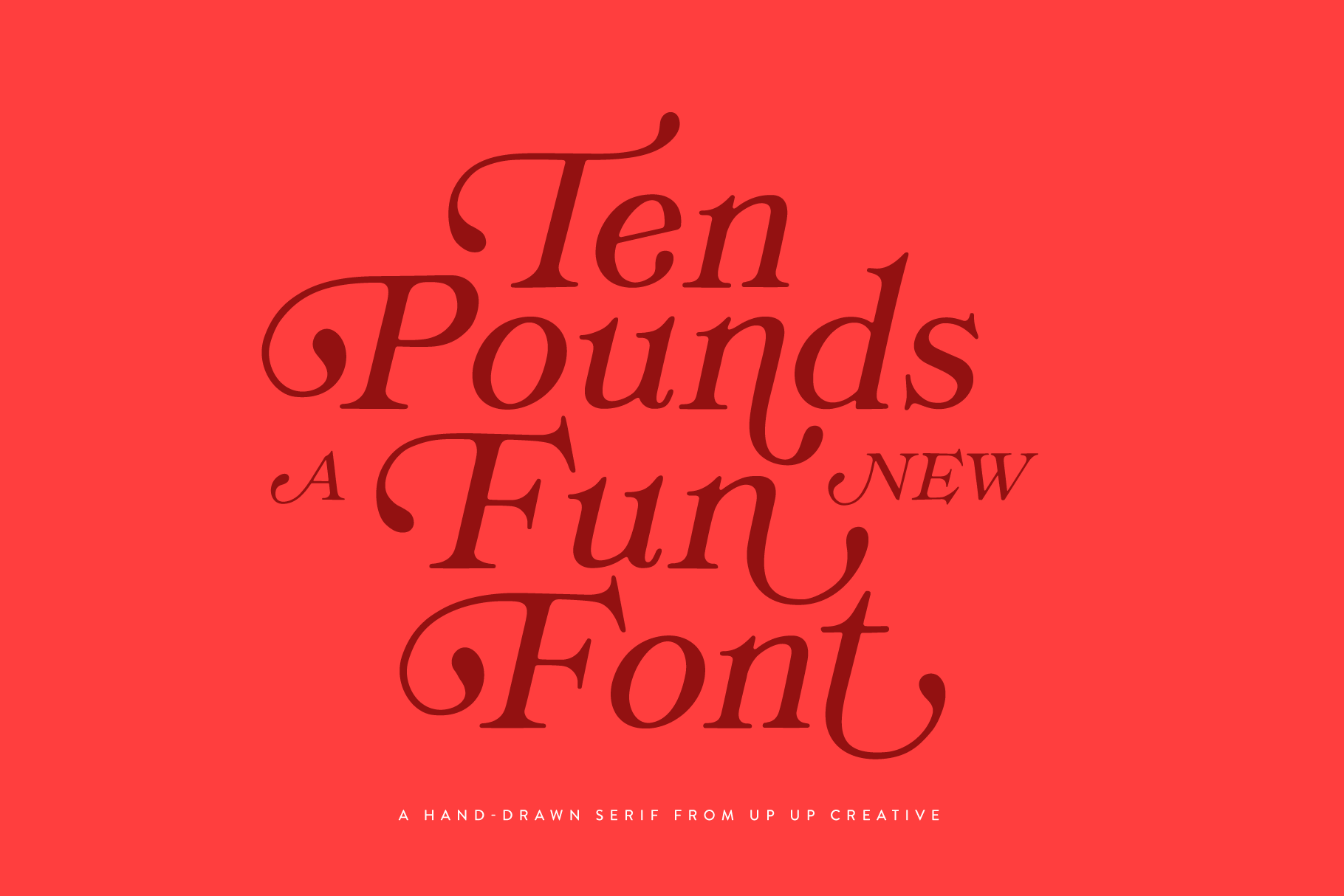
Ten Pounds, A Hand-Drawn Font
** Introducing Ten Pounds, a fun, hand-drawn serif font with tons of character (and tons of characters!).**
Ten Pounds is perfect for branding, poster design, t-shirts, invitations, design for children, and editorial design. It comes with more than 1300 glyphs, including more than 100 ligatures. OpenType features include stylistic sets, character variants, initial and final forms, and multilingual support (including multiple currency symbols).
I LOVE this vintage inspired font! And the amount of glyphs and ligatures is mind-boggling. A truly unique font that stands out from the pack.